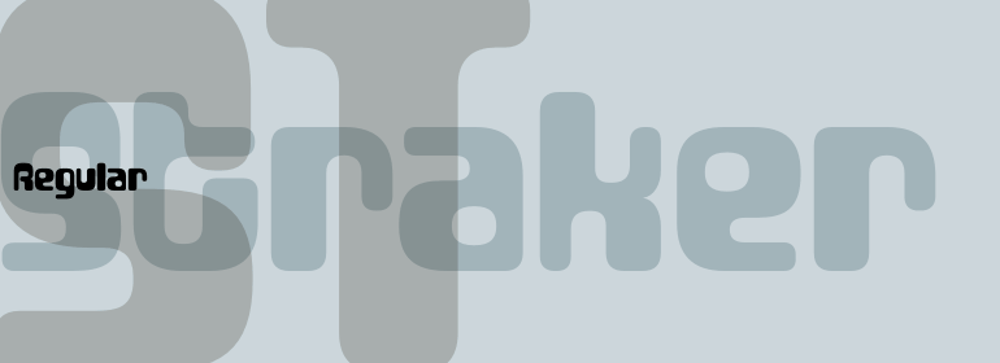
Straker Font Family was designed by Rian Hughes and published by Device. Straker contains 1 styles and family package options. Straker is named after the beige Nehru-collared commander in Gerry Anderson’s masterpiece, UFO.